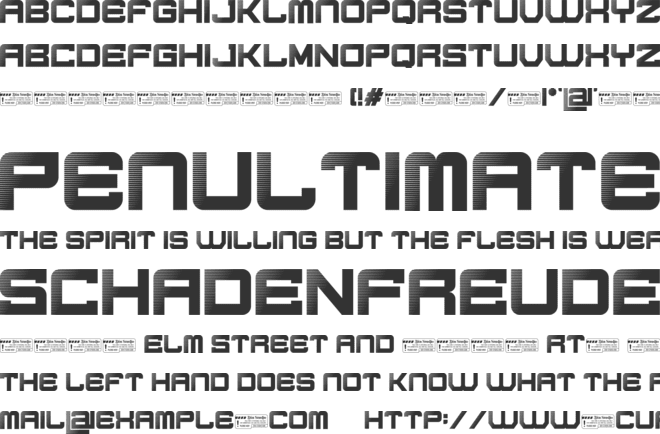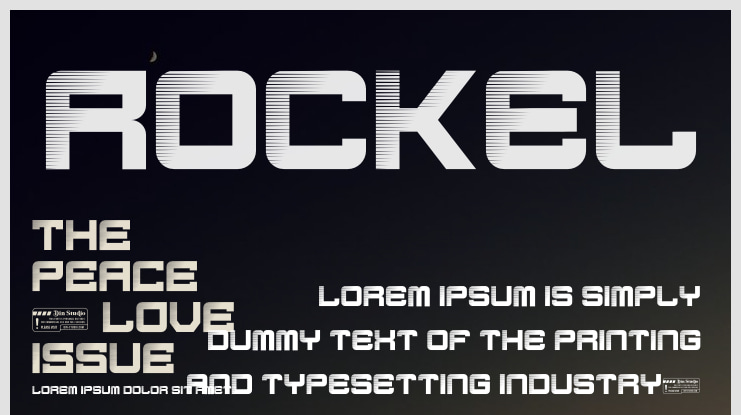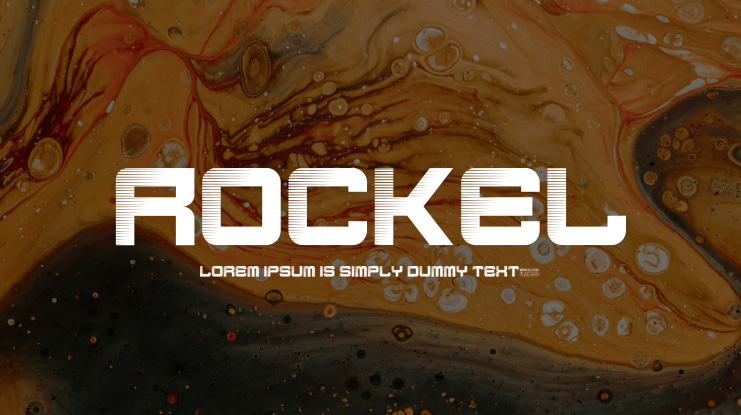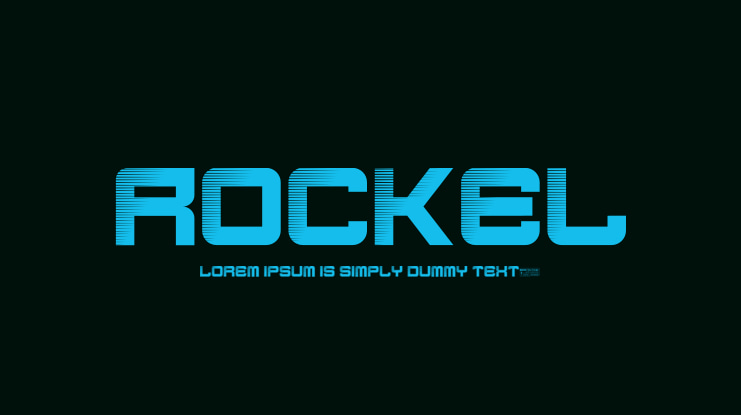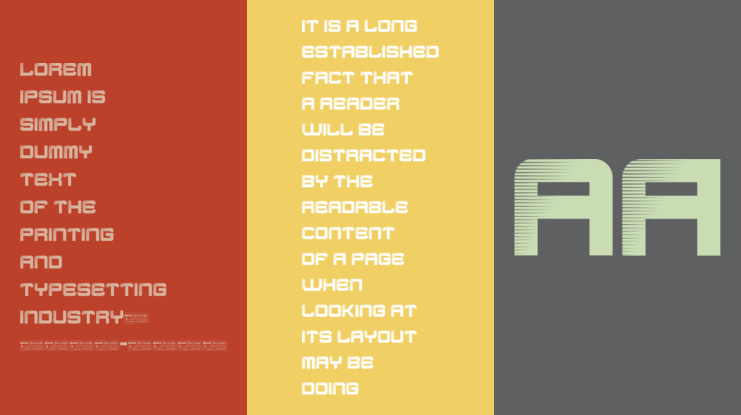
Product Description: Rockel is a striking display font that exudes a futuristic vibe, perfect for sci-fi enthusiasts. Embodying elements of science fiction, Rockel brings a touch of futuristic technology to your projects.